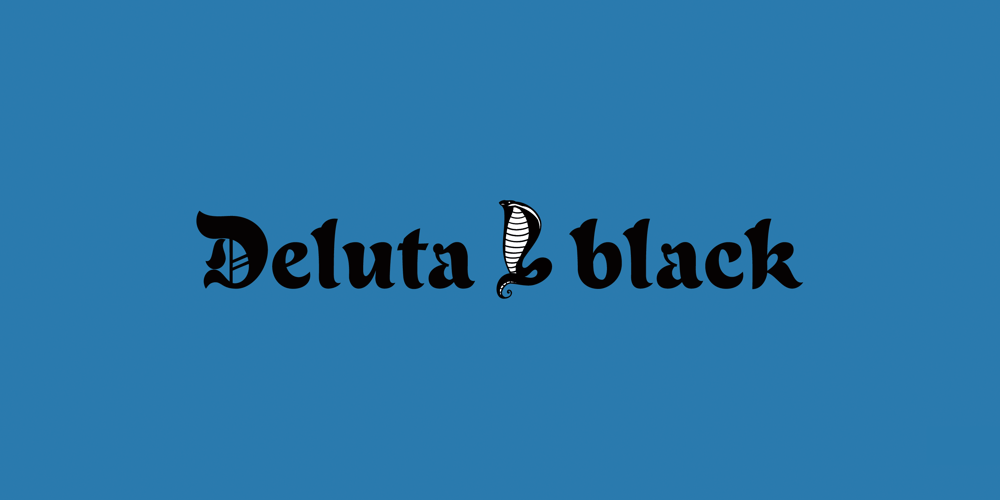
Deluta
Deluta font
Deluta Font Family was designed by Ryoichi Tsunekawa and published by Dharma Type. Deluta contains 1 styles and family package options. You can not find such a lovely, unique and funny blackletter. Enjoy and have fun with this font. There are two other fonts designed by in the same concept. -Xesy -Ekistra -Deluta Black